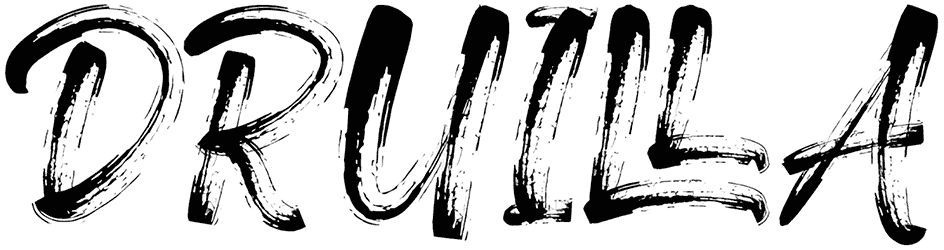
Druilla Font
It’s such a bummer that this eroded font in front of you is without the lowercase edition of letters and numerals, isn’t it? Not that it makes Druilla any less valuable as a graphic design asset, but as an all-caps font, it’s generally meant for logos and titles rather than long texts.
Still, you should take this chance and download this cool brush font for designing your apparel, karate class posters, summer party banners, farmers market signs, and anything creative.